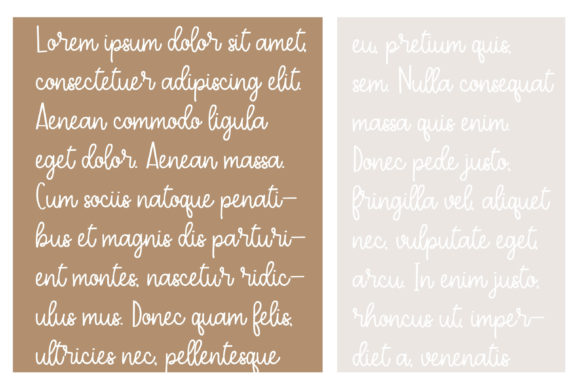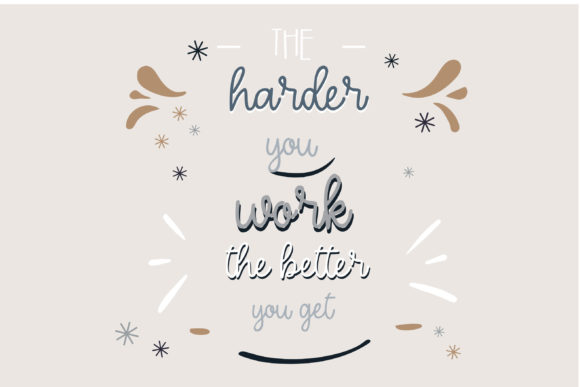
ZP Nein Fraulein Font
db-ku.com - Script & Handwritten -- This casual, hand-written script has a very print-like uppercase. Use this handwritten font to add a personal feel to all your pretty designs!